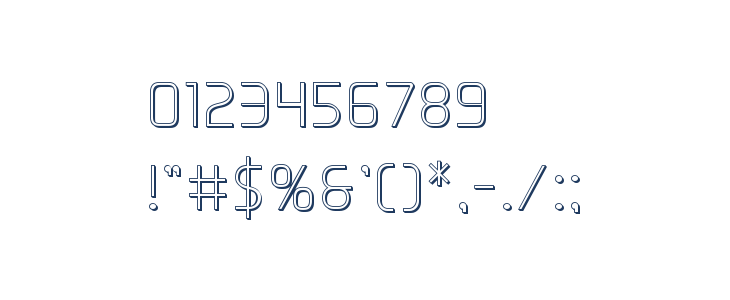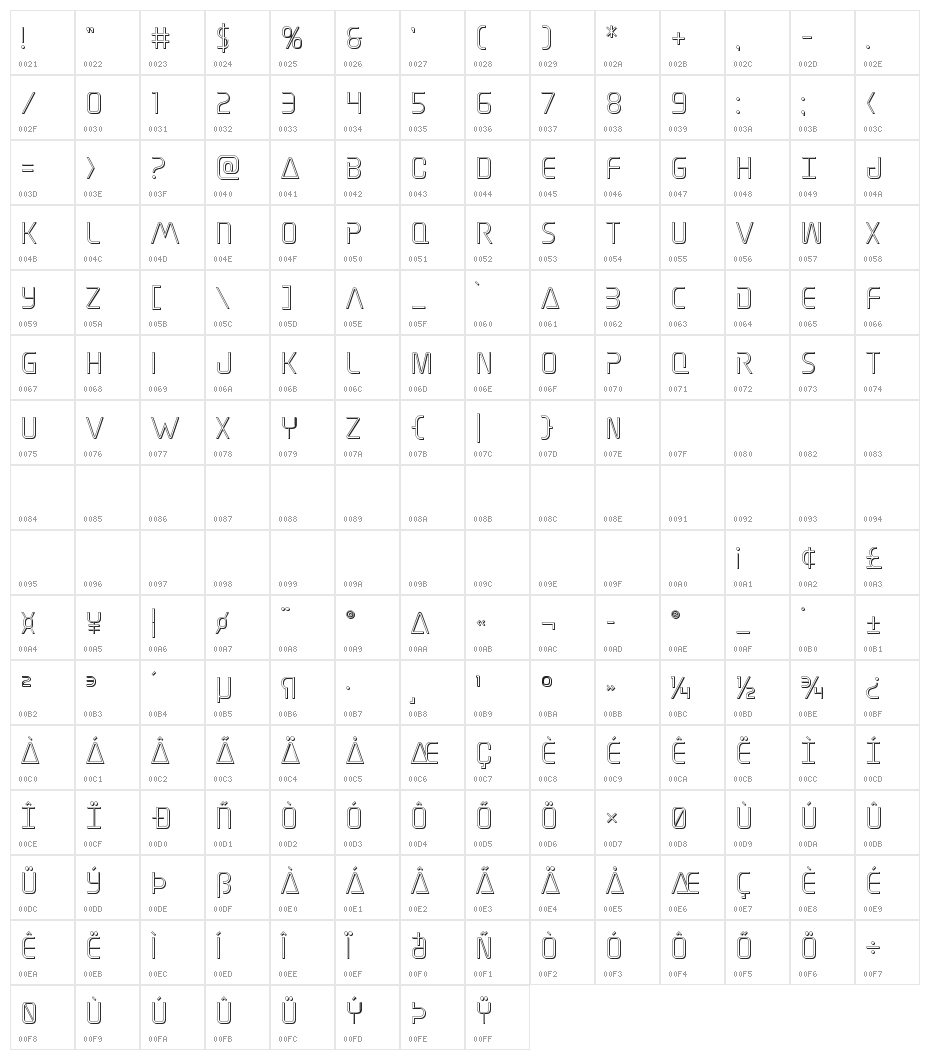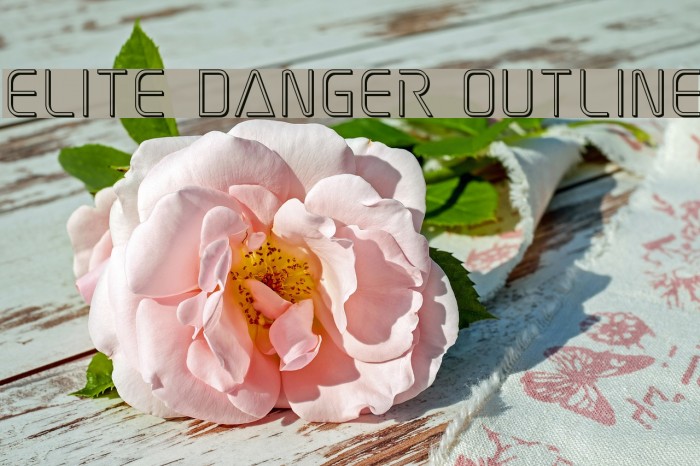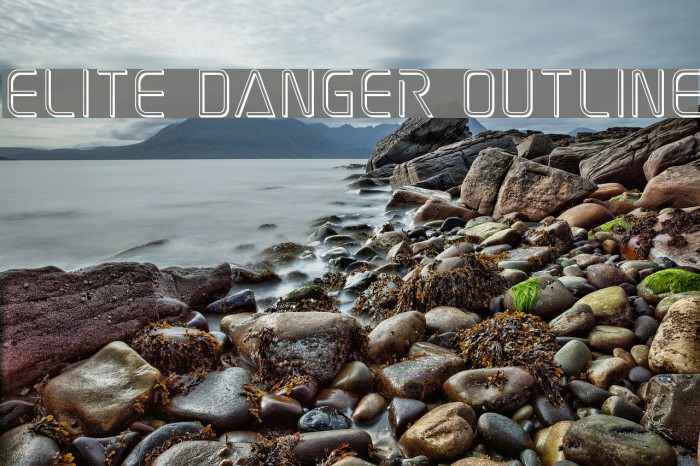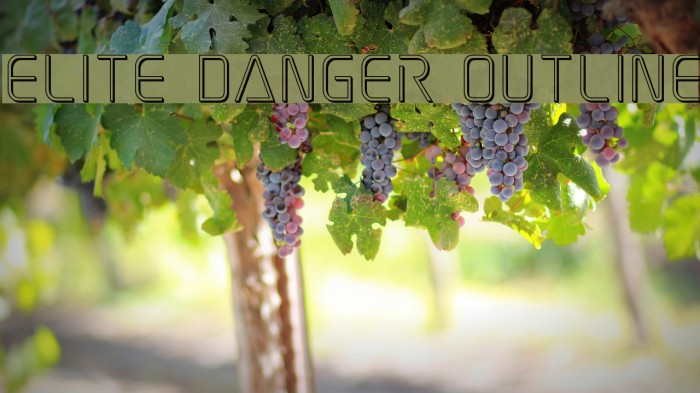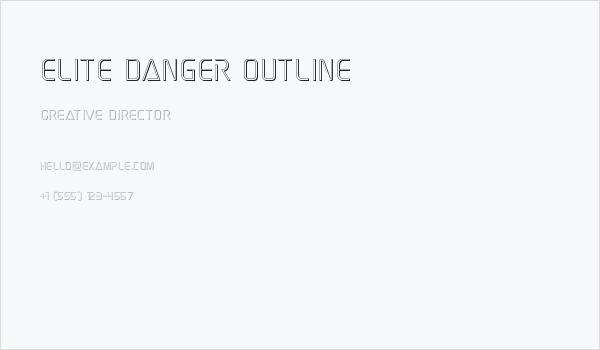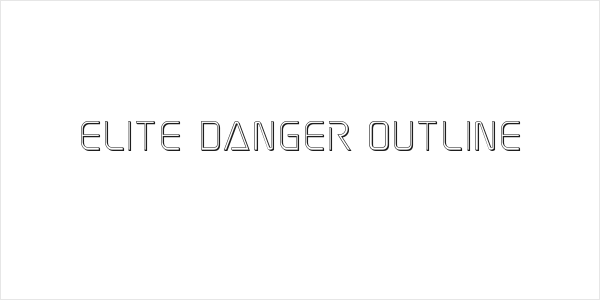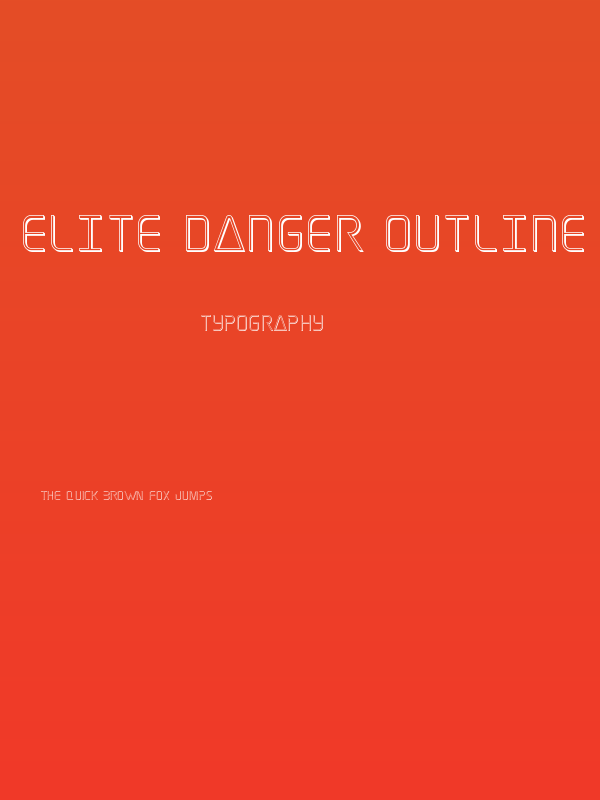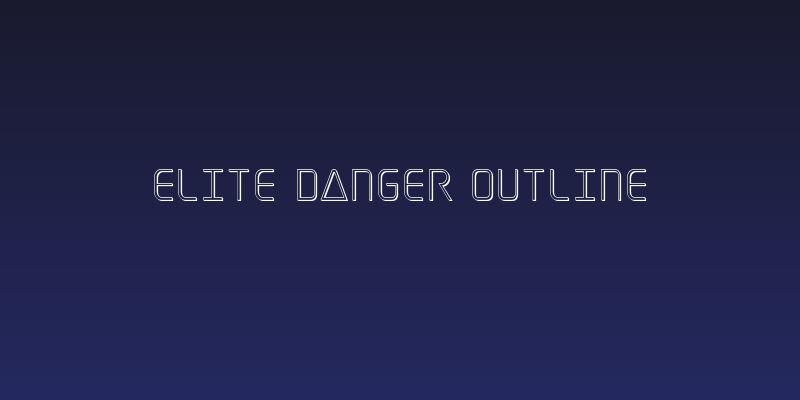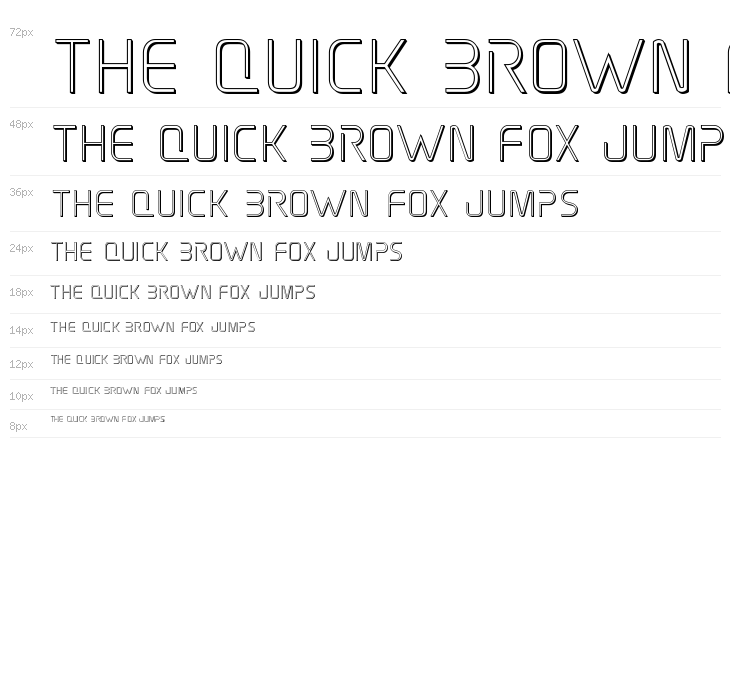
Elite Danger Outline Font
Elite Danger Outline Description
This font features a modern, geometric outline style with clean lines and a futuristic aesthetic. The uppercase and lowercase letters are designed with a consistent stroke width, creating a uniform appearance. The characters are slightly condensed, giving a sleek and compact look. The font includes a full set of uppercase and lowercase letters, numbers, and a variety of special characters. Its outline design makes it ideal for projects that require a bold yet minimalistic touch, such as logos, posters, and digital media. The font's unique style is both eye-catching and versatile, suitable for a range of creative applications.
| Use Case | Logos, Posters, Digital Media |
| Proposed Projects | Ideal for logos, posters, digital media, and any project requiring a bold, minimalistic touch. |